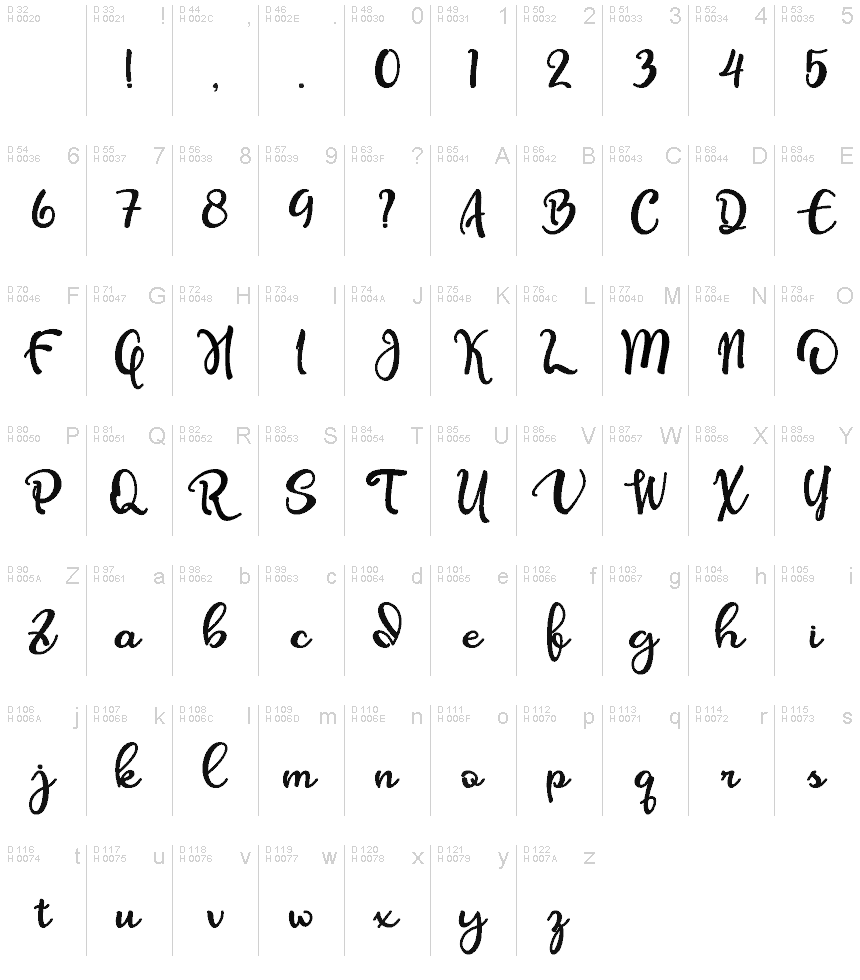
Olcigatte DEMO
Olcigatte is a captivating handwritten font that exudes a distinctive charm. Crafted by the talented team at LakuningH2O Studio, this font effortlessly blends organic fluidity with refined elegance. Its bold, expressive strokes and playful ligatures create a delightfully dynamic aesthetic, making it a versatile choice for a wide range of design applications.
From vibrant branding and alluring typography to whimsical stationery and captivating packaging, Olcigatte's expressive personality shines through, adding a touch of personality and character to any project. Its adaptability across various mediums, from print to digital, ensures that this font can seamlessly integrate into diverse design narratives, elevating the overall visual impact.